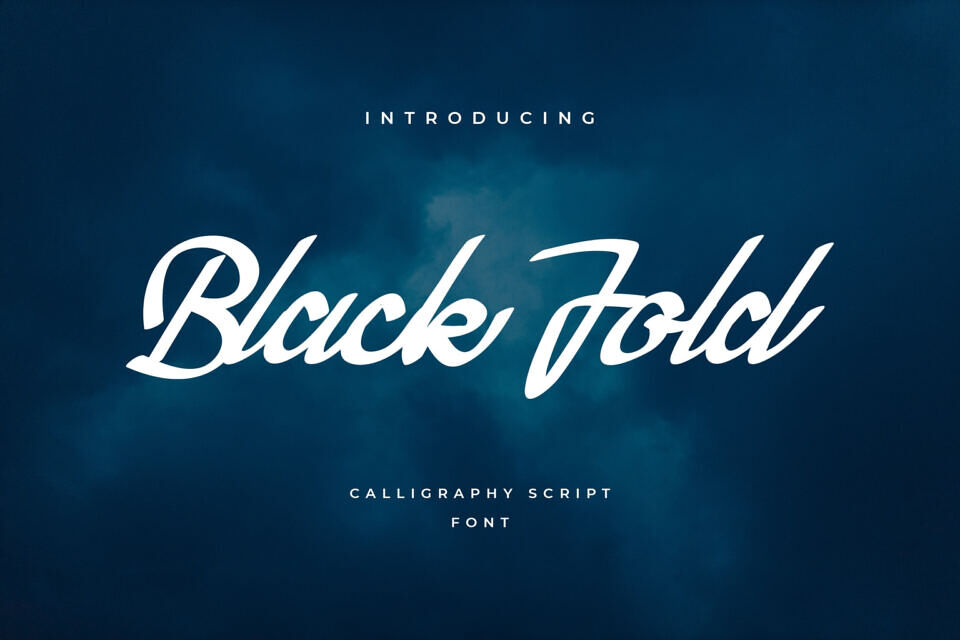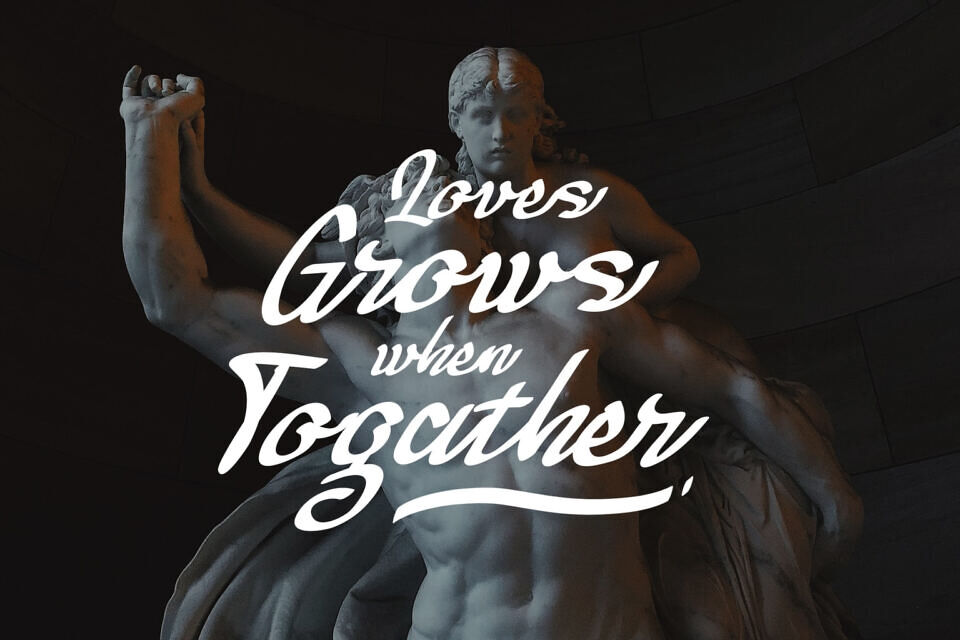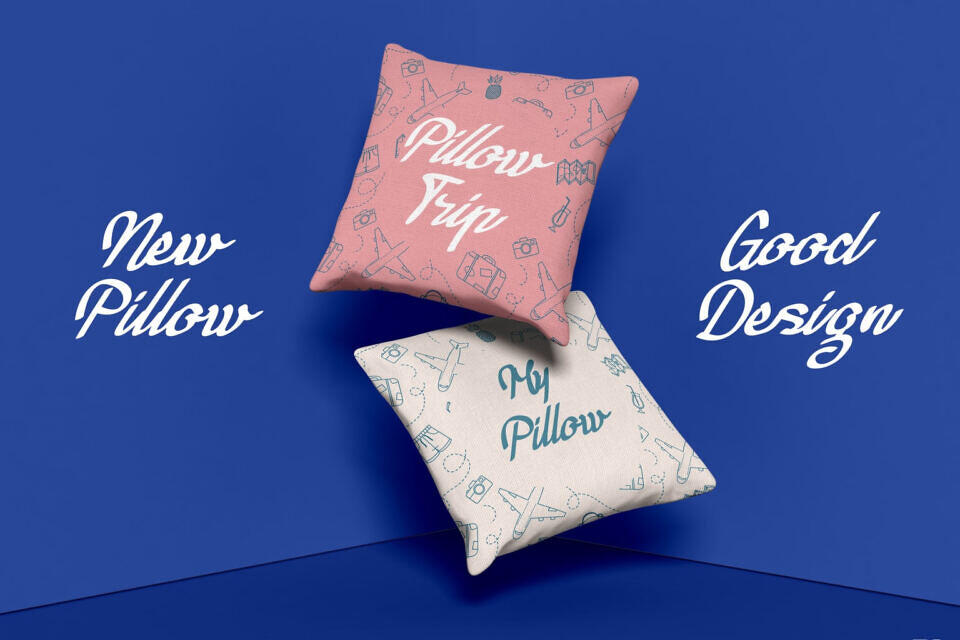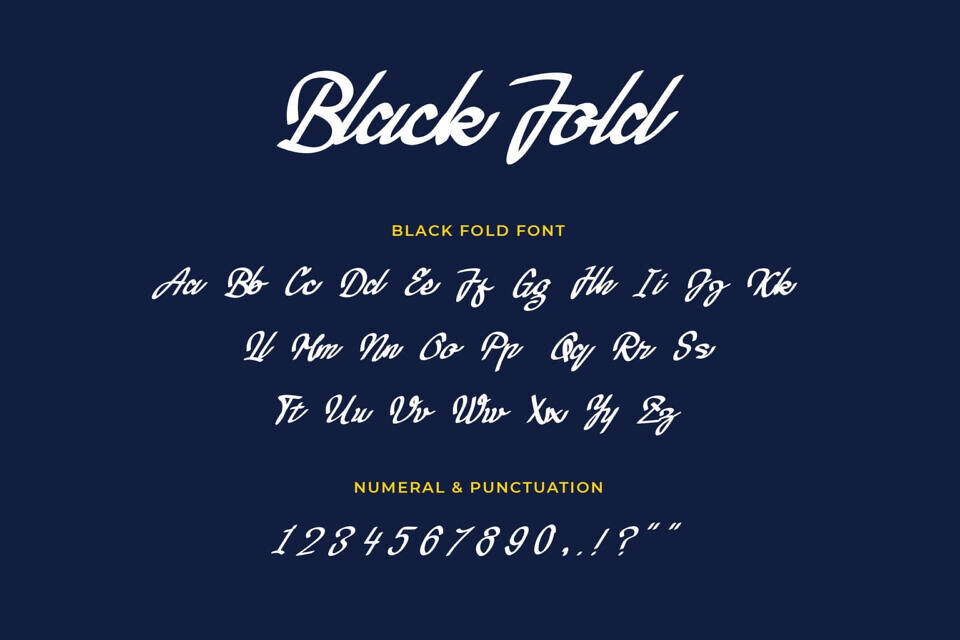
Black Fold Font
Black Fold is a bold and stylish paint brush script font. Whether you’re using it for crafting, digital designing, presentations or greeting cards making, it’s perfect!